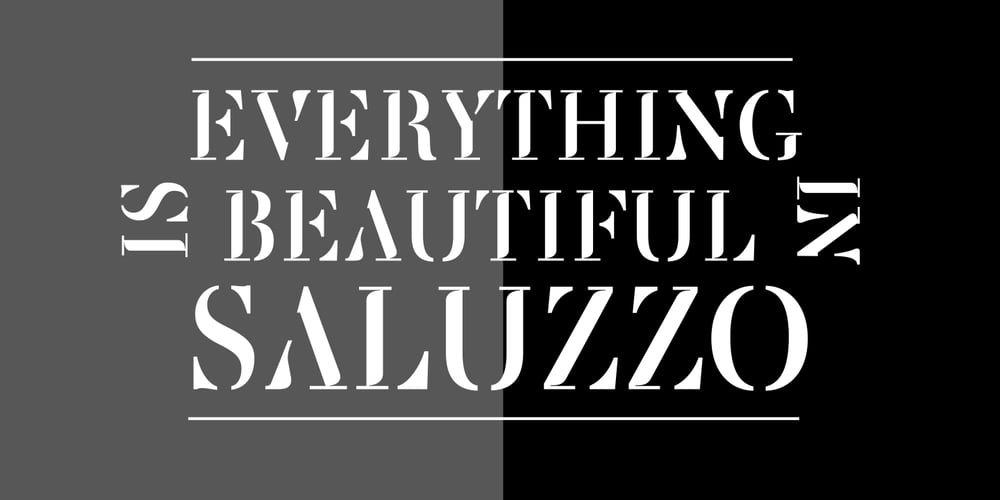
Saluzzo
Saluzzo font
Saluzzo Font Family was designed by Robbie de Villiers and published by Wilton Foundry. Saluzzo contains 1 styles and family package options. The name Saluzzo is given to this font in honor of Giambattista Bodoni (1740–1813). Bodoni was born in the town of Saluzzo, Cuneo, Italy, and died at the age of 30. Saluzzo is a contemporary interpretation of Bodoni, retaining its elegant thin serifs and contrasted with heavy downstrokes. What makes Saluzzo unique is that it was approached from a calligraphic point of view. Also unique in this interpretation is the fact that it is a stencil. Saluzzo is a great choice when you need a font that is contemporary, timeless, and distinctive. Perfect for Advertising, Corporate identities and Packaging design, Fashion, Technology, Hospitality, Travel, and Retail applications. Saluzzo Regular Opentype is a Stencil font that is Contemporary, Distinctive, and Timeless.